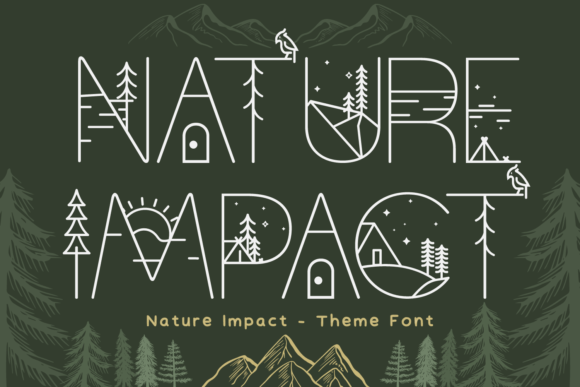
Looking for the best fonts to showcase your love for nature? Look no further than Nature Impact Font, created by 177Studio.
This unique display font features thin lines and a nature-inspired style, with uppercase letters adorned with geometric and natural elements. But what really sets Nature Impact Font apart is its ornate initials, featuring intricate floral designs, flowers, plants, leaves, and more.
Whether you're designing a label, logo, or other project that needs to capture the essence of nature, Nature Impact Font is the perfect choice. Its delicate design is ideal for short, bold words, ensuring that all the details are visible and impactful.